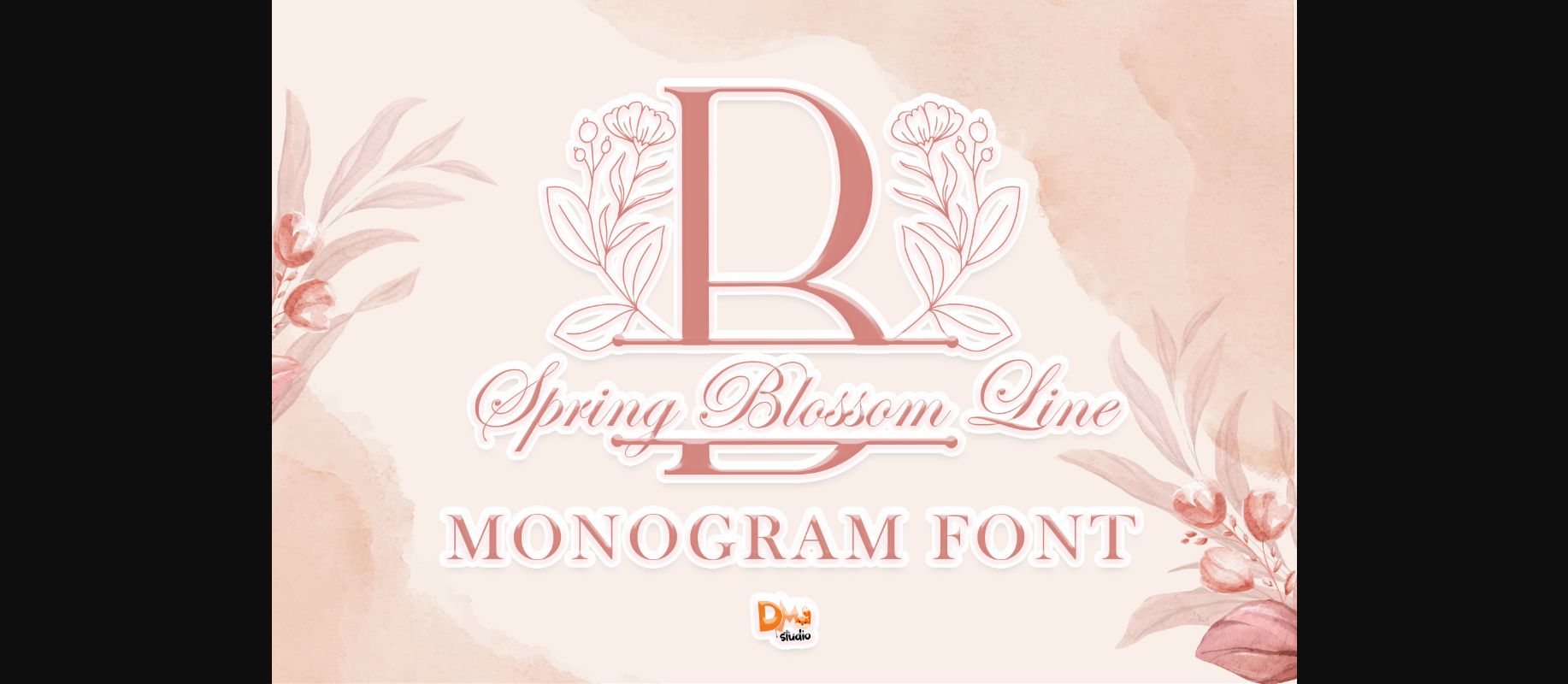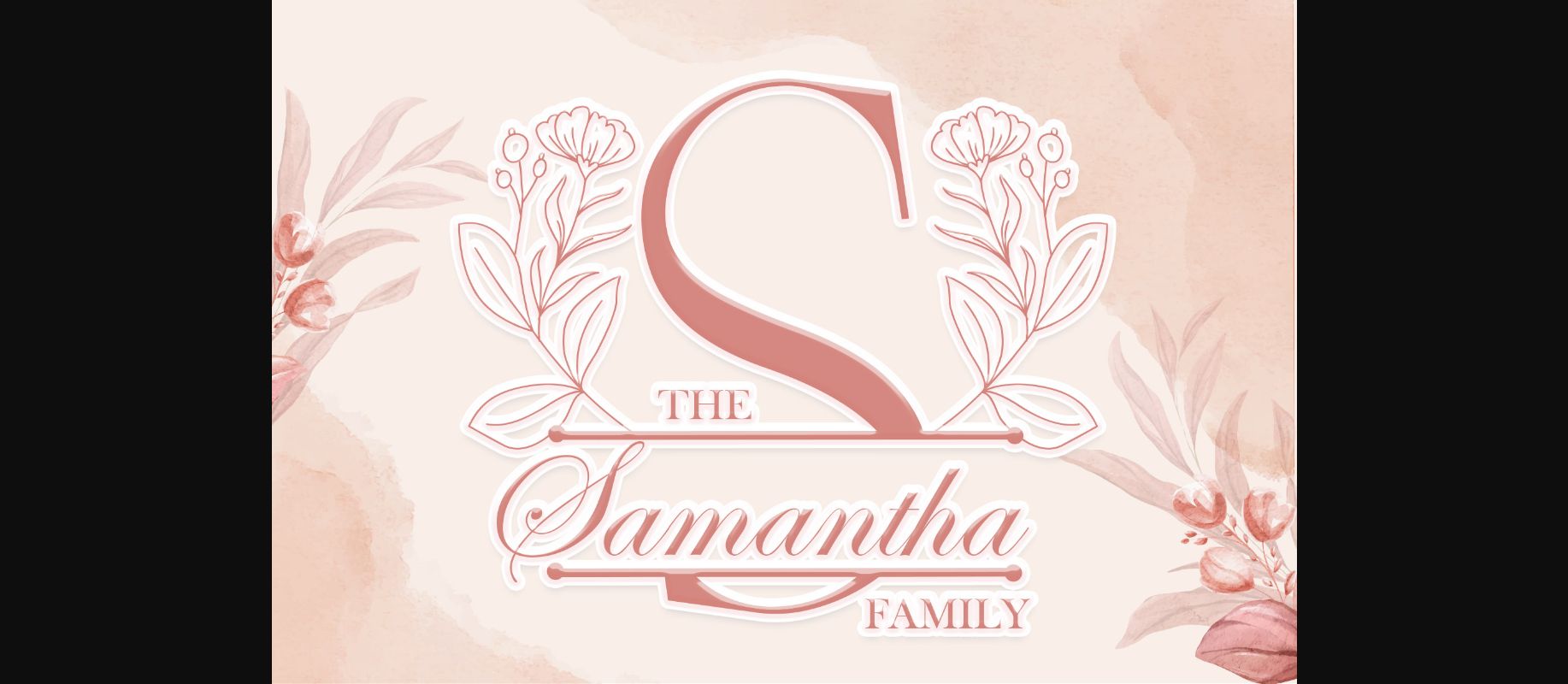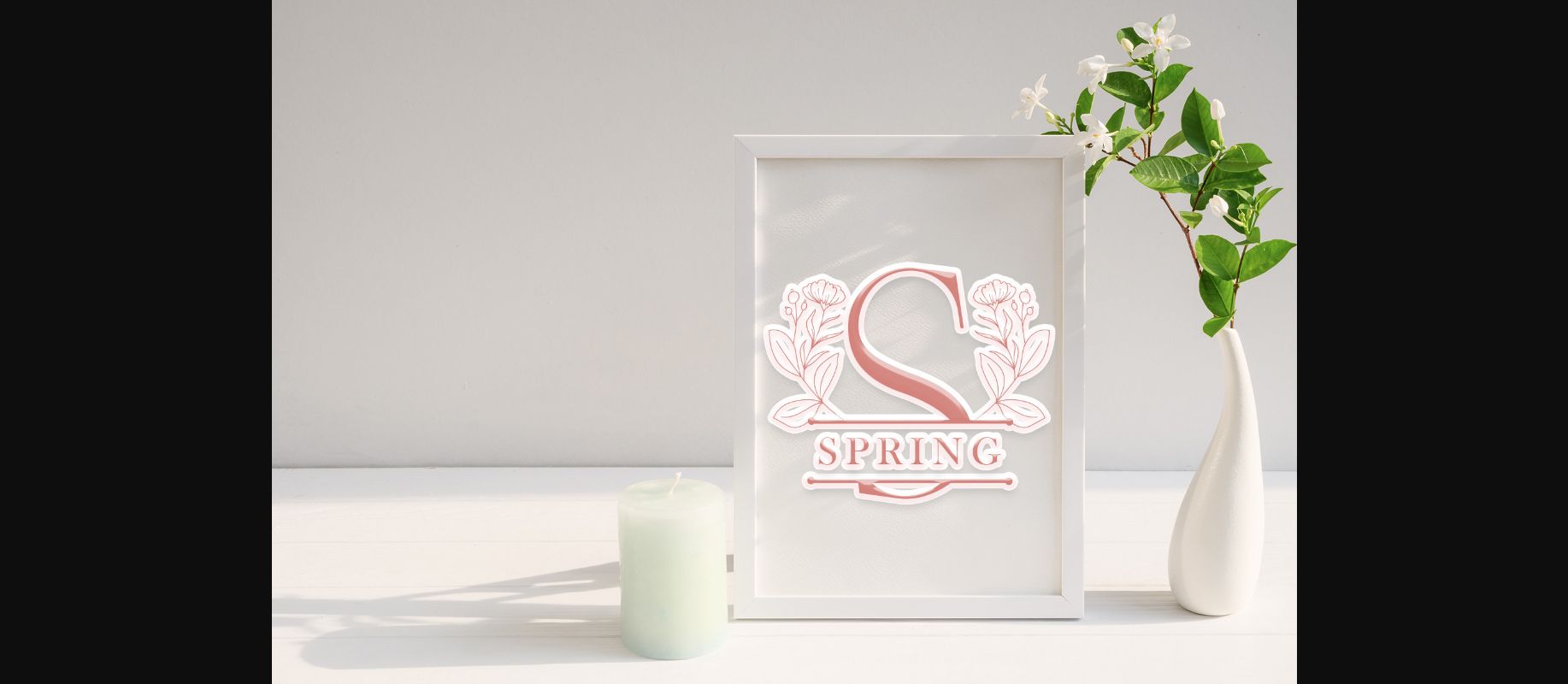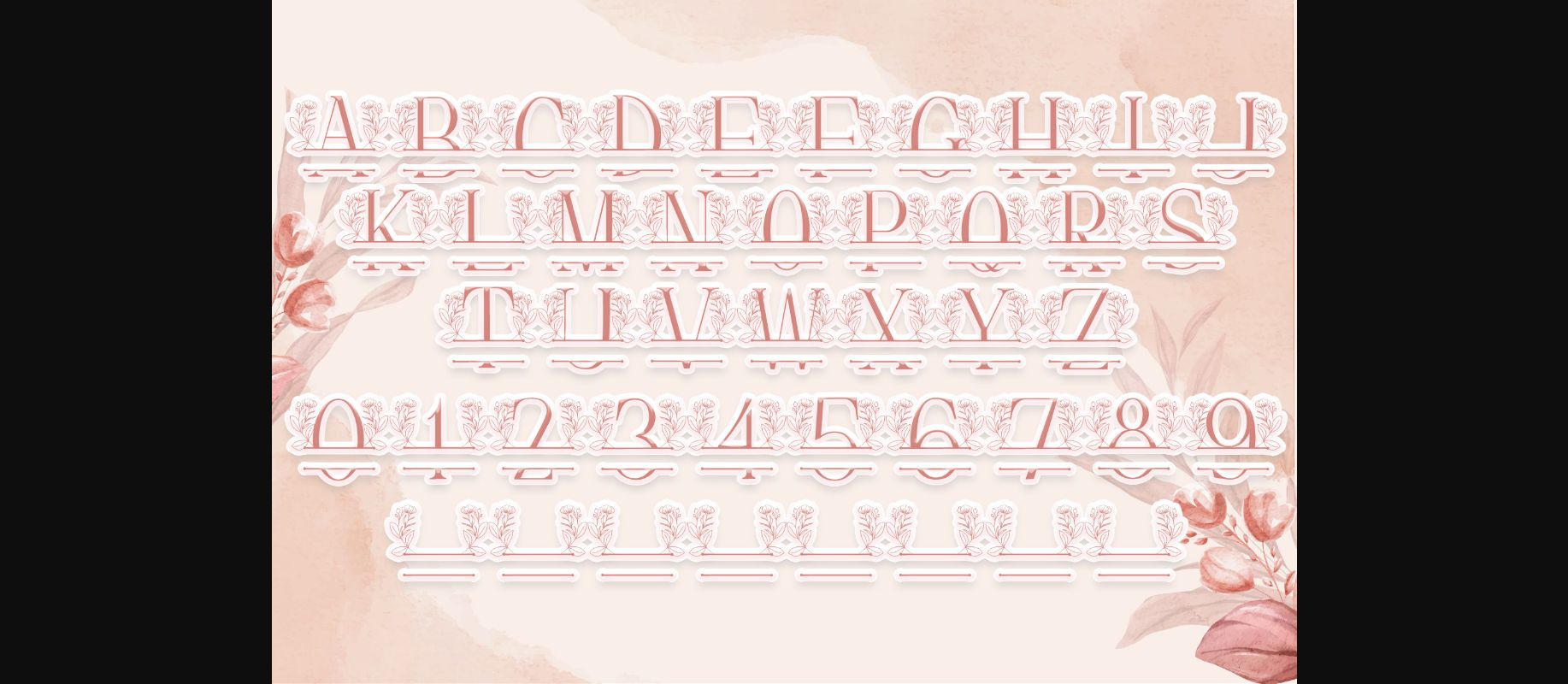
Spring Blossom Line Monogram Font
About Spring Blossom Line Monogram Font
Spring Blossom Line Monogram is a dainty and unique decorative font. Add this romantic and lovely looking font to each of your love letters, wedding invitations or favorite design ideas, and you will be astounded by the outcome.